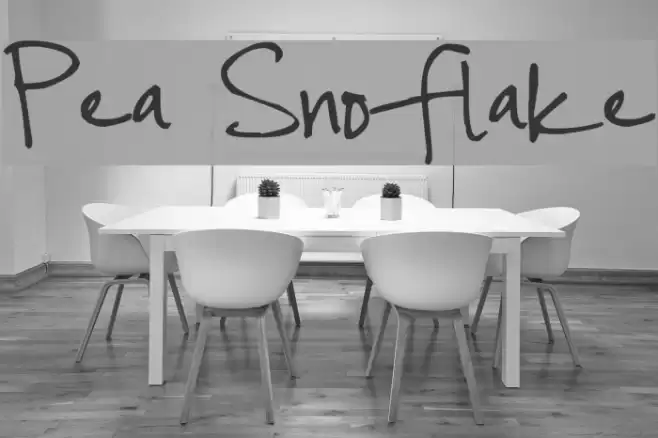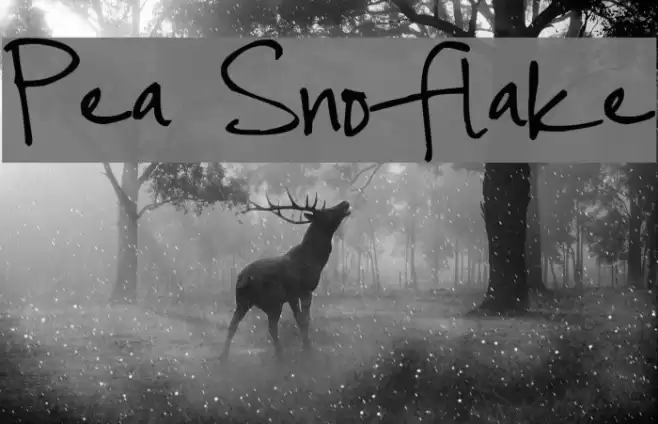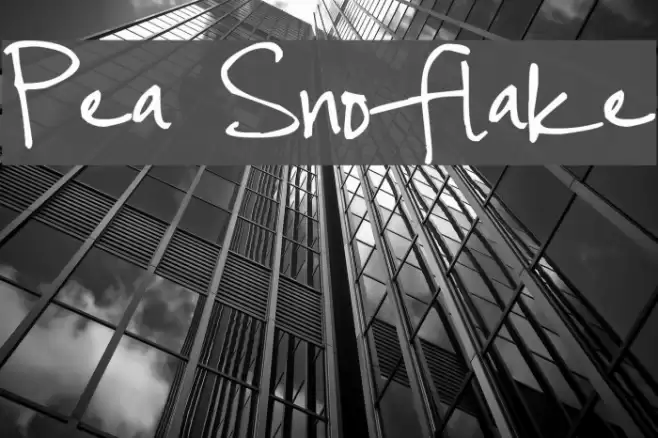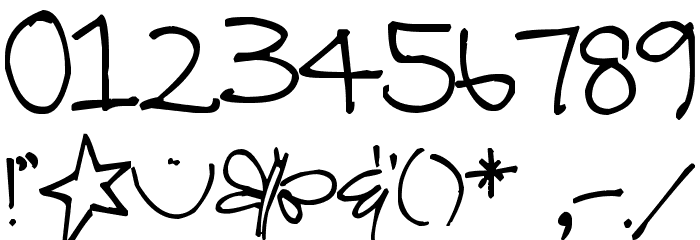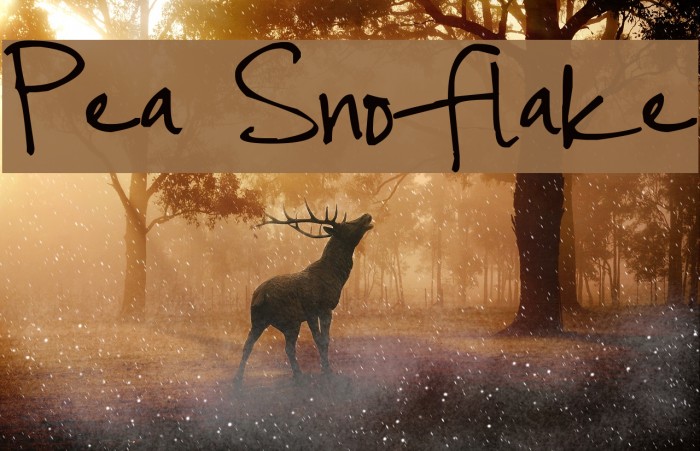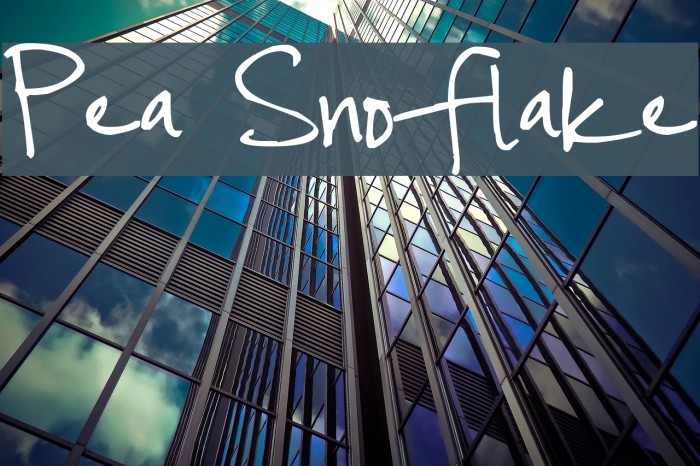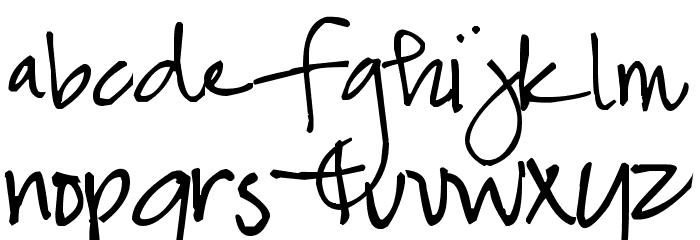
Pea Snoflake
This playful handwritten font exudes a casual and whimsical charm, characterized by its irregular strokes and lively appearance. The uppercase letters are tall and slightly uneven, giving a sense of spontaneity and creativity. The lowercase letters maintain a consistent flow, with some letters featuring loops and curls that add to the font's dynamic nature. Numbers are bold and clear, while special characters are uniquely styled, enhancing the font's overall quirky personality. This font is perfect for projects that require a personal touch, such as greeting cards, invitations, or playful branding.
A whimsical handwritten font with lively, irregular strokes.
- Proposed Projects: Ideal for greeting cards, invitations, playful branding, and personal projects.
- Overall Style: Playful, Casual
- Use Case: Headlines, Informal text, Creative projects